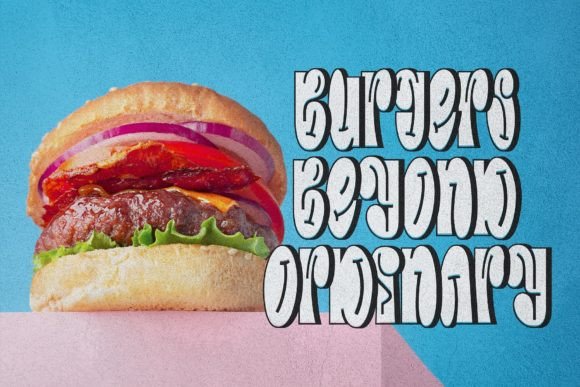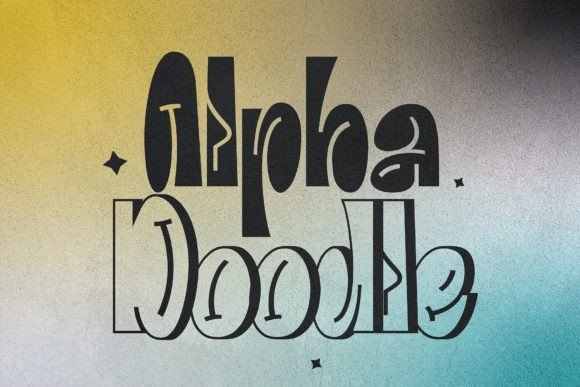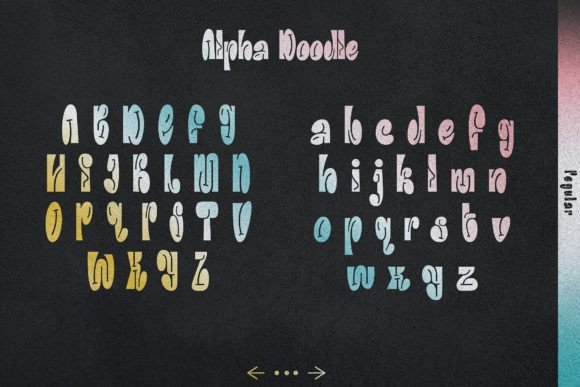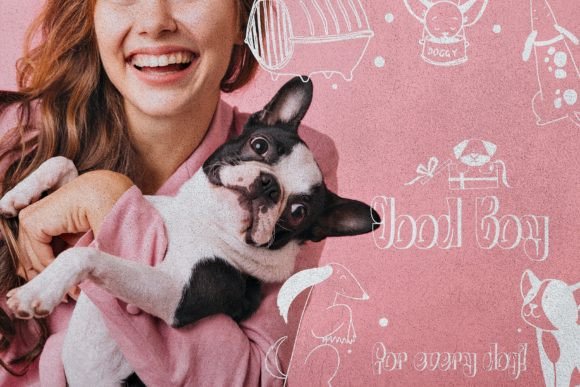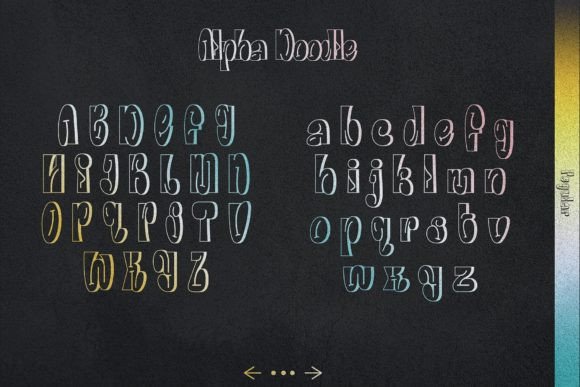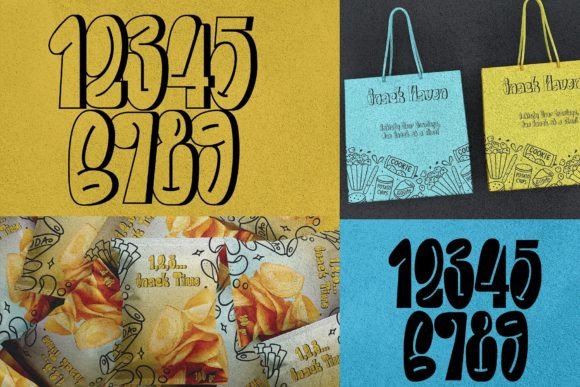
Unleashing Creativity: The Alpha Doodle Font
Do you remember the thrill of doodling as a child, letting your imagination run wild as you created vibrant, whimsical characters on the pages of your notebook? For many of us, those carefree moments of artistic expression have stayed with us into adulthood, influencing the way we approach design and creativity. The Alpha Doodle Font is a direct descendant of those joyful doodles, distilling the essence of spontaneous art into a unique, captivating typeface.
As a versatile and engaging font, Alpha Doodle is designed to bring a touch of excitement and sophistication to a wide range of projects. Its playful charm and graffiti-influenced style make it an ideal choice for designers seeking to infuse their work with a sense of adventure and childlike wonder.
Alpha Doodle Font Key Features
- Font Style: Hand-drawn, playful, and modern font with a doodle-like aesthetic.
- Character Count: 250+ glyphs, including uppercase and lowercase letters, numbers, and punctuation marks.
- Unique Characteristics: Each letter is carefully hand-drawn to create a unique, playful, and modern feel, making it perfect for creative projects and designs.
Alpha Doodle Font Review
I recently had the chance to work with the Alpha Doodle Font, and I must say it’s a unique and creative addition to any design project. Here are my honest thoughts.
- The Alpha Doodle Font is highly customizable, allowing designers to adjust line width, spacing, and even the level of “doodling” to achieve the perfect look.
- It’s incredibly versatile and can be used for a wide range of projects, from children’s books to marketing materials.
- The font is also relatively easy to use, even for designers who are new to creative fonts.
- One major limitation is that the Alpha Doodle Font can be quite overwhelming if not used in moderation. It’s easy to overdo the doodling and end up with a design that’s too busy.
- The font may not be suitable for projects that require a high level of professionalism or sophistication.
Overall, I think the Alpha Doodle Font is a great choice for designers who want to add some whimsy and creativity to their projects. However, it’s essential to use it thoughtfully and in moderation to avoid overwhelming the design. With the right balance, it can be a fantastic addition to any project.
Alpha Doodle Font is commonly used for: children’s party invitations, baby shower invitations, nursery decor, and other creative projects where a playful, whimsical font is desired.